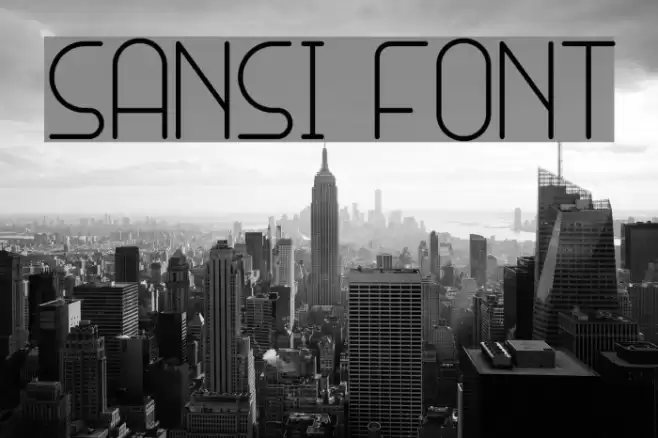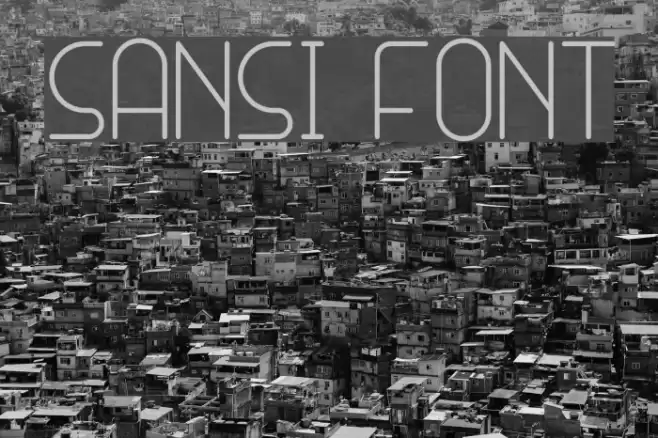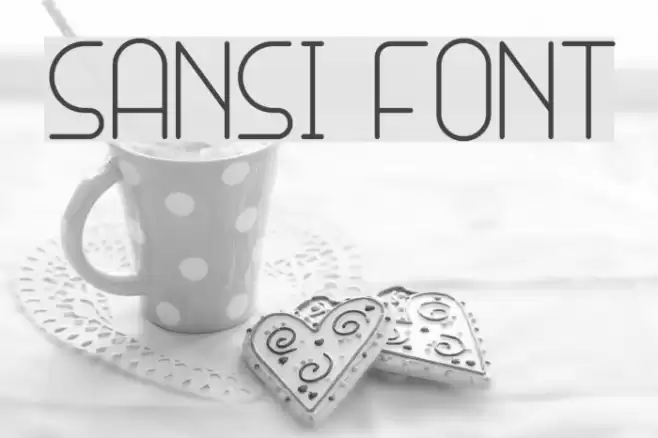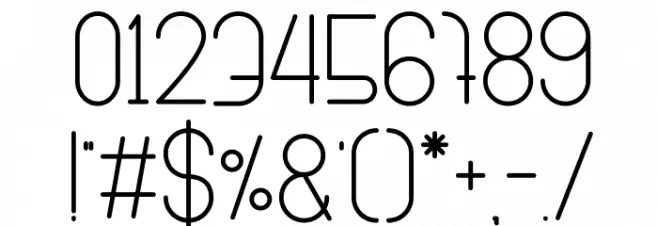
SANSI Font
SANSI Description
This font features a clean, geometric design with a modern aesthetic. The characters are constructed with uniform line thickness, giving it a sleek and minimalist appearance. The uppercase and lowercase letters maintain a consistent height, contributing to a harmonious look. The numerals and special characters are designed to match the overall style, ensuring a cohesive appearance across all text. The font's simplicity and clarity make it highly legible, even at smaller sizes. Its contemporary style is suitable for a wide range of applications, from digital interfaces to print media.
A modern, geometric font with uniform line thickness and high legibility from Uncategorized fonts.